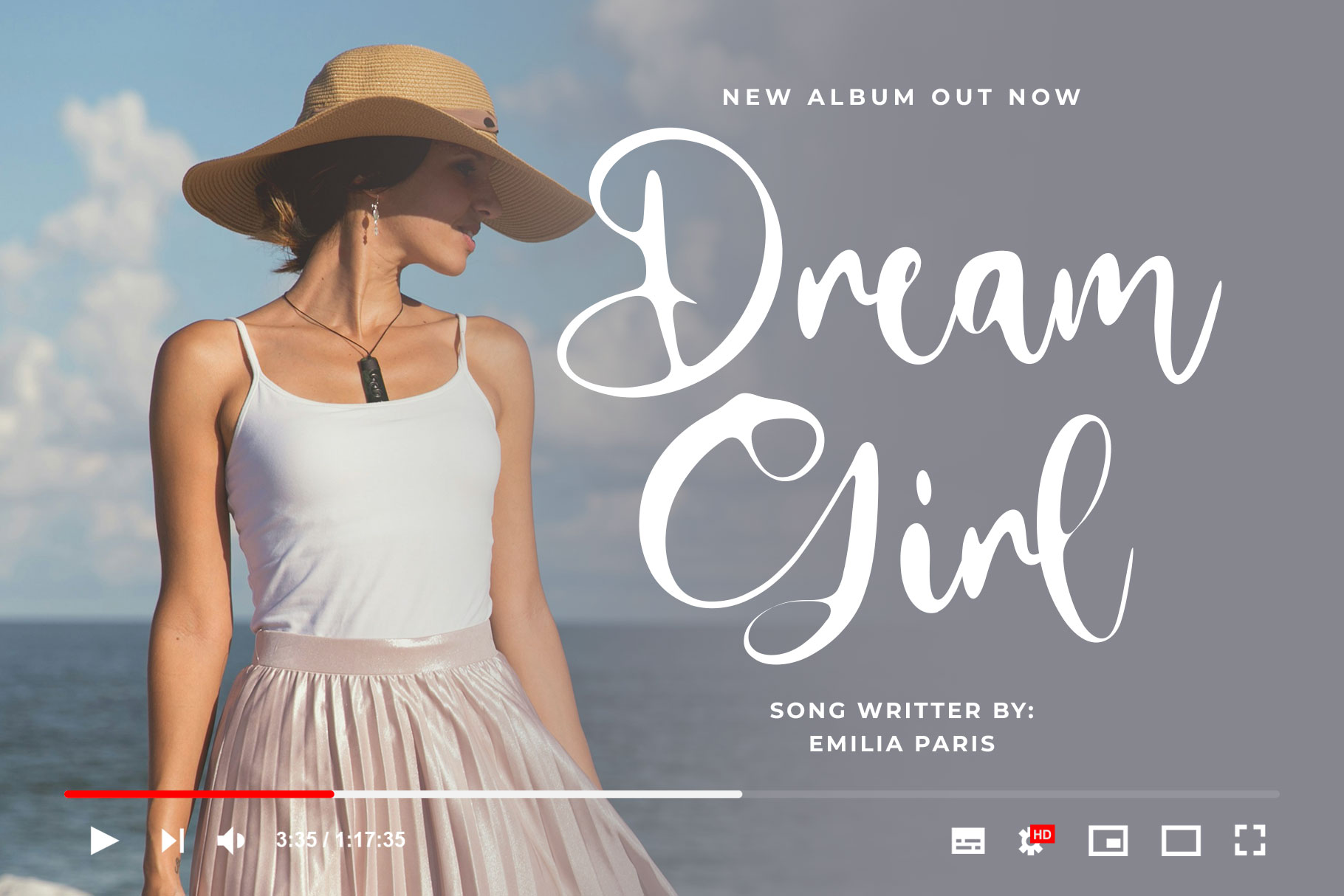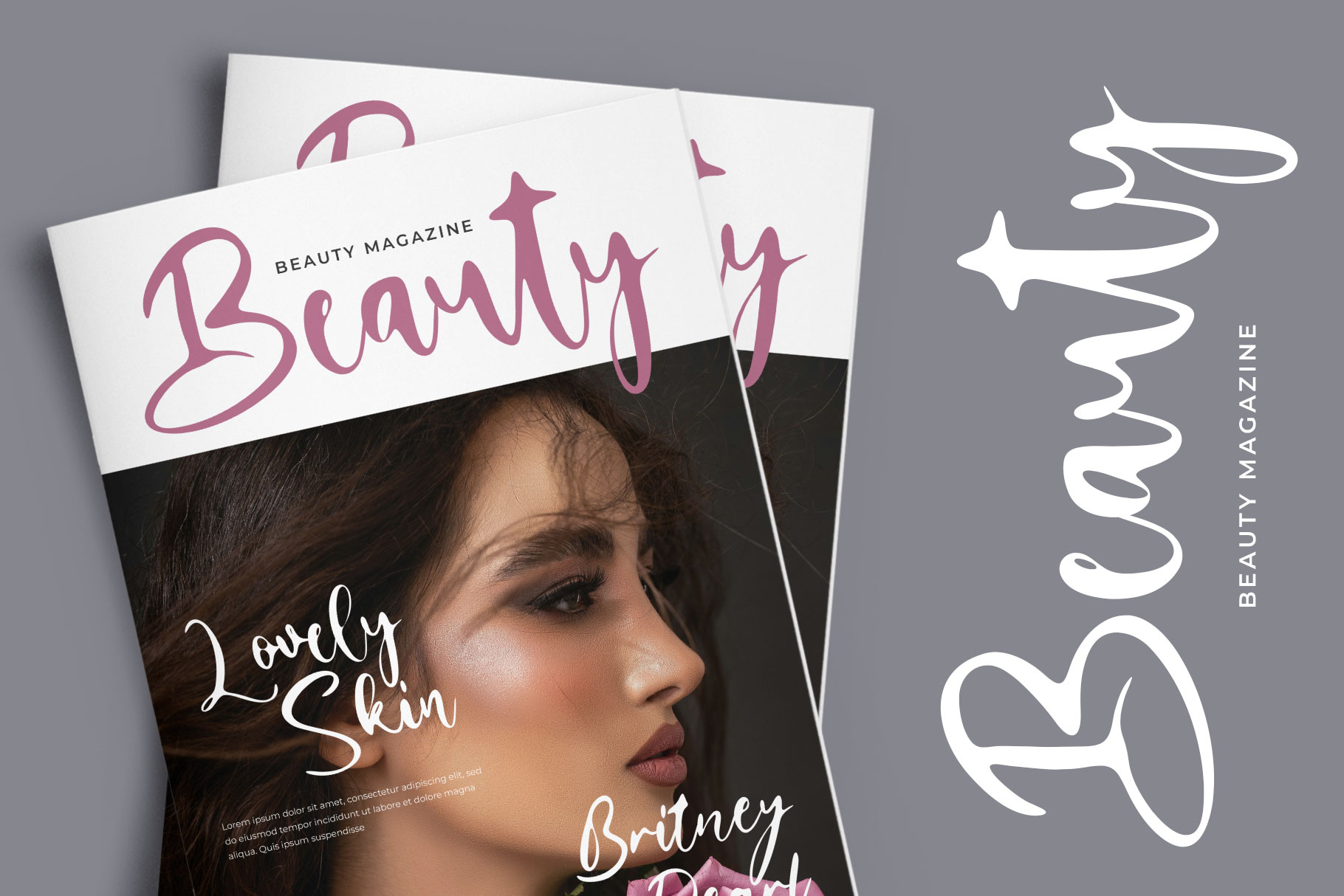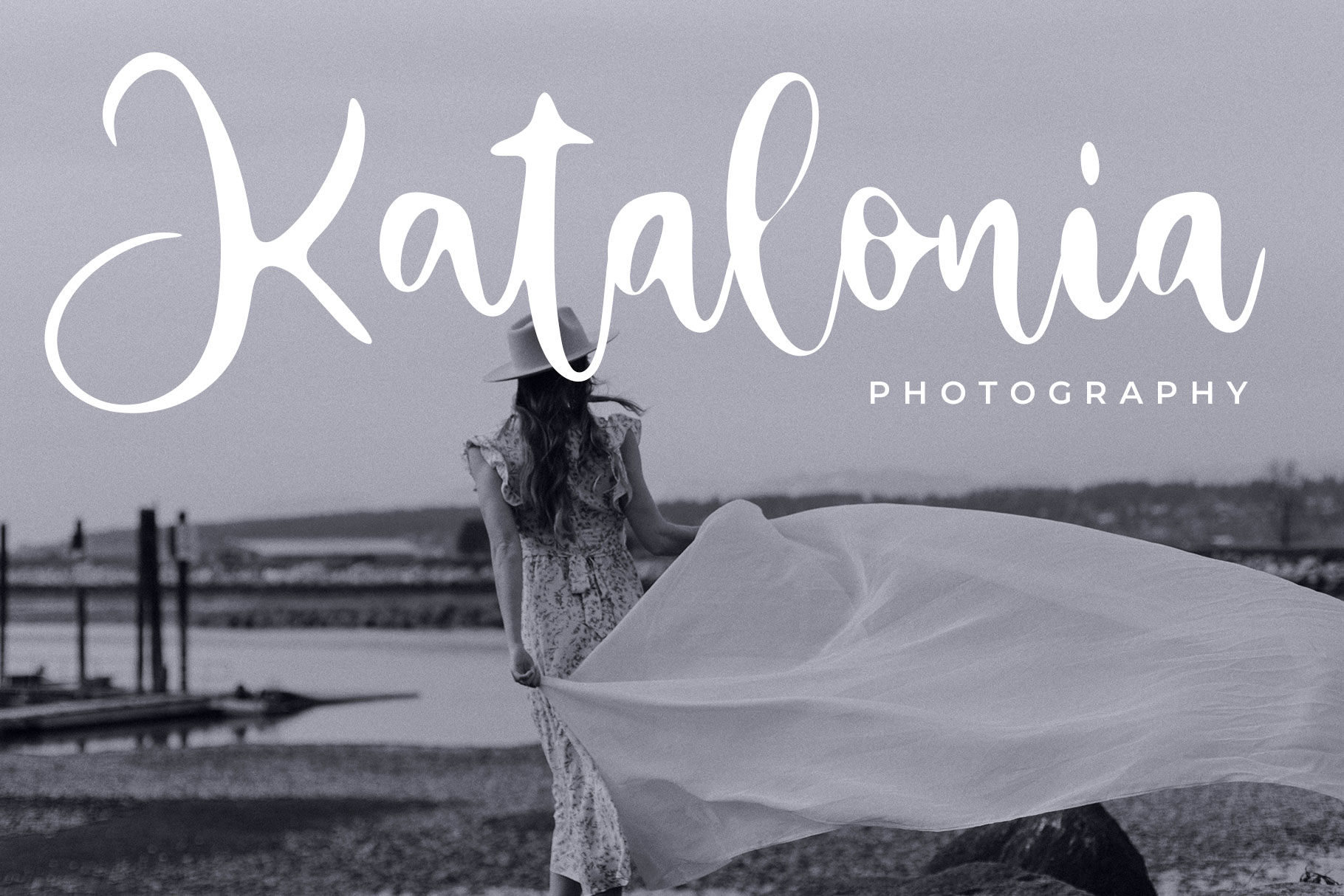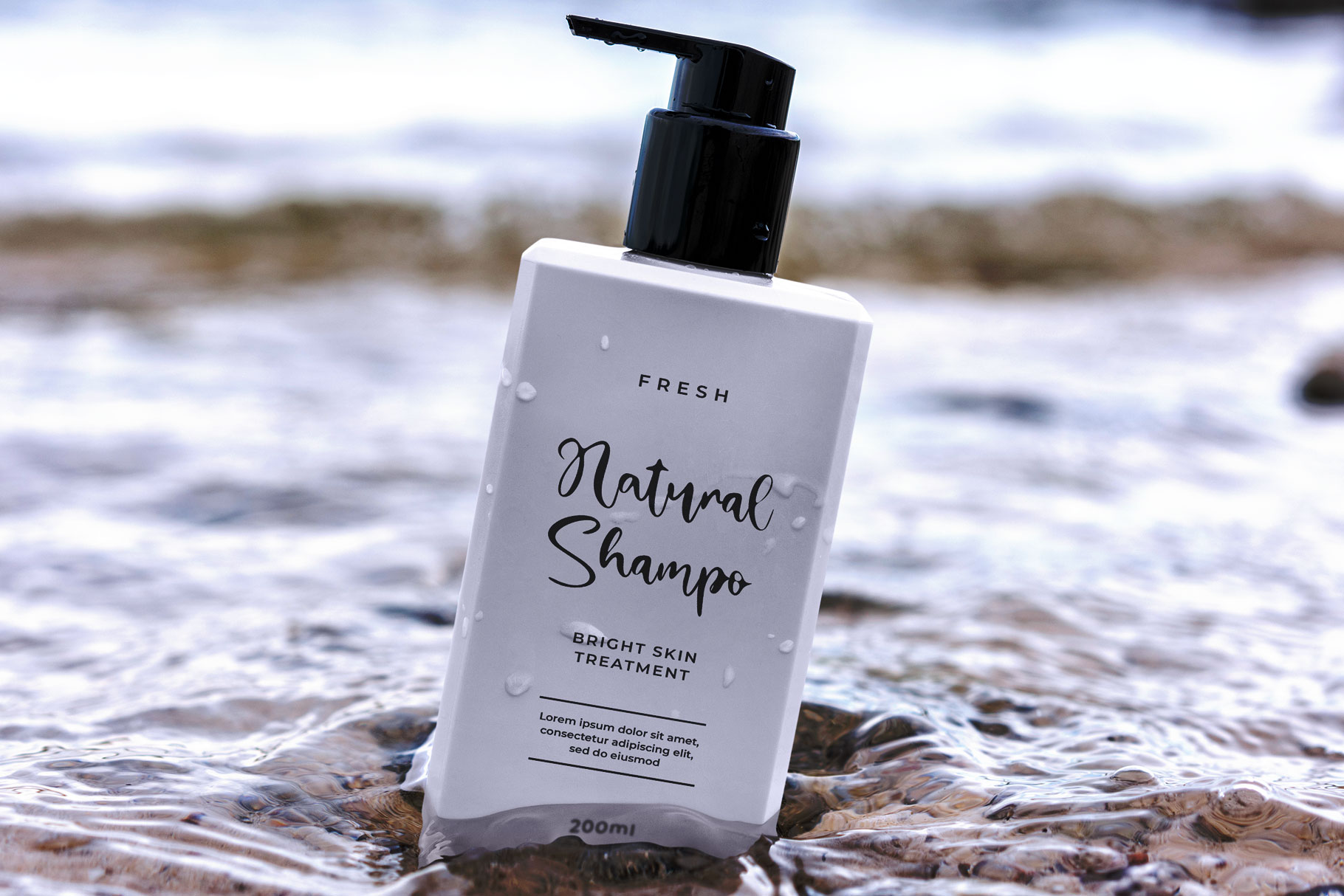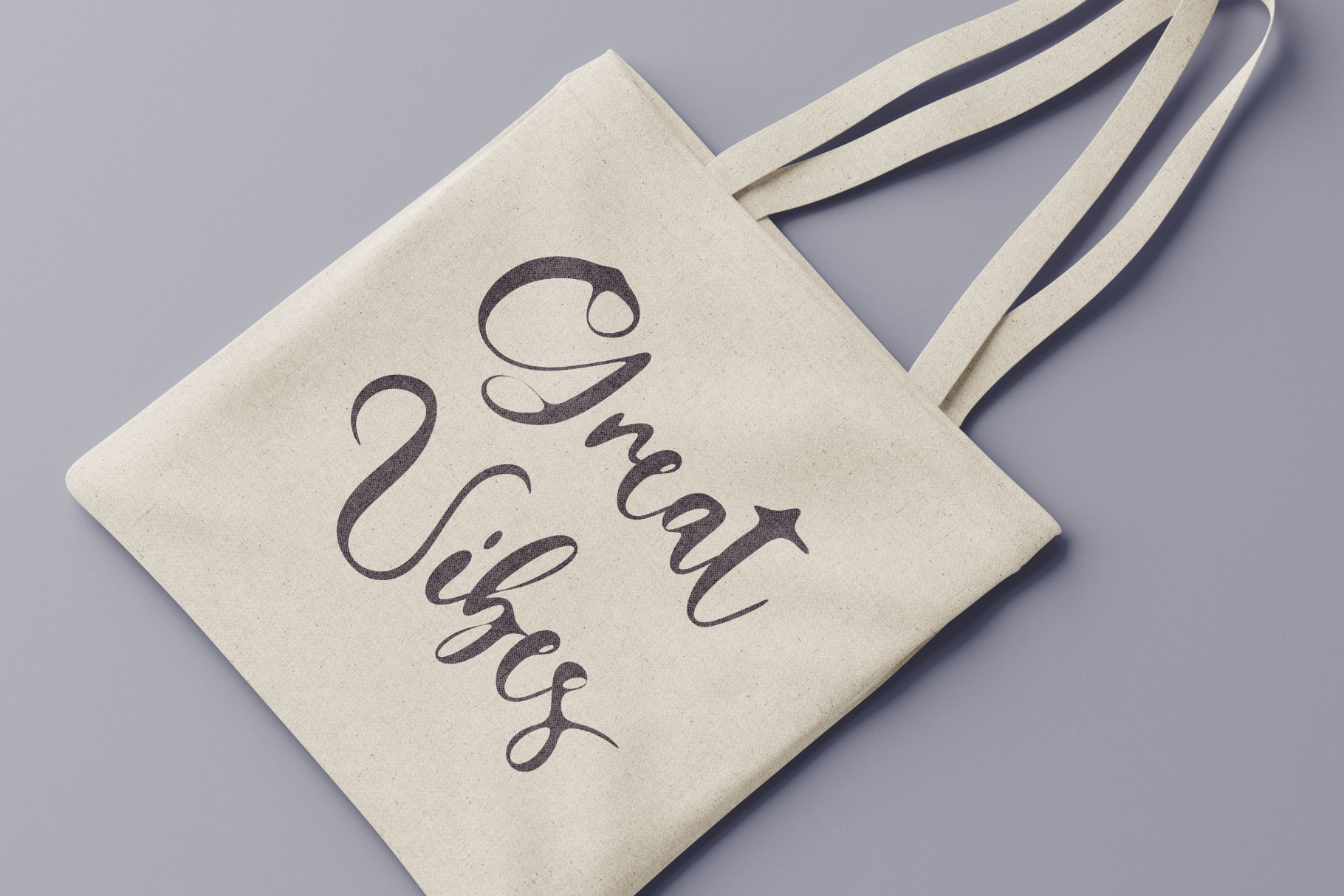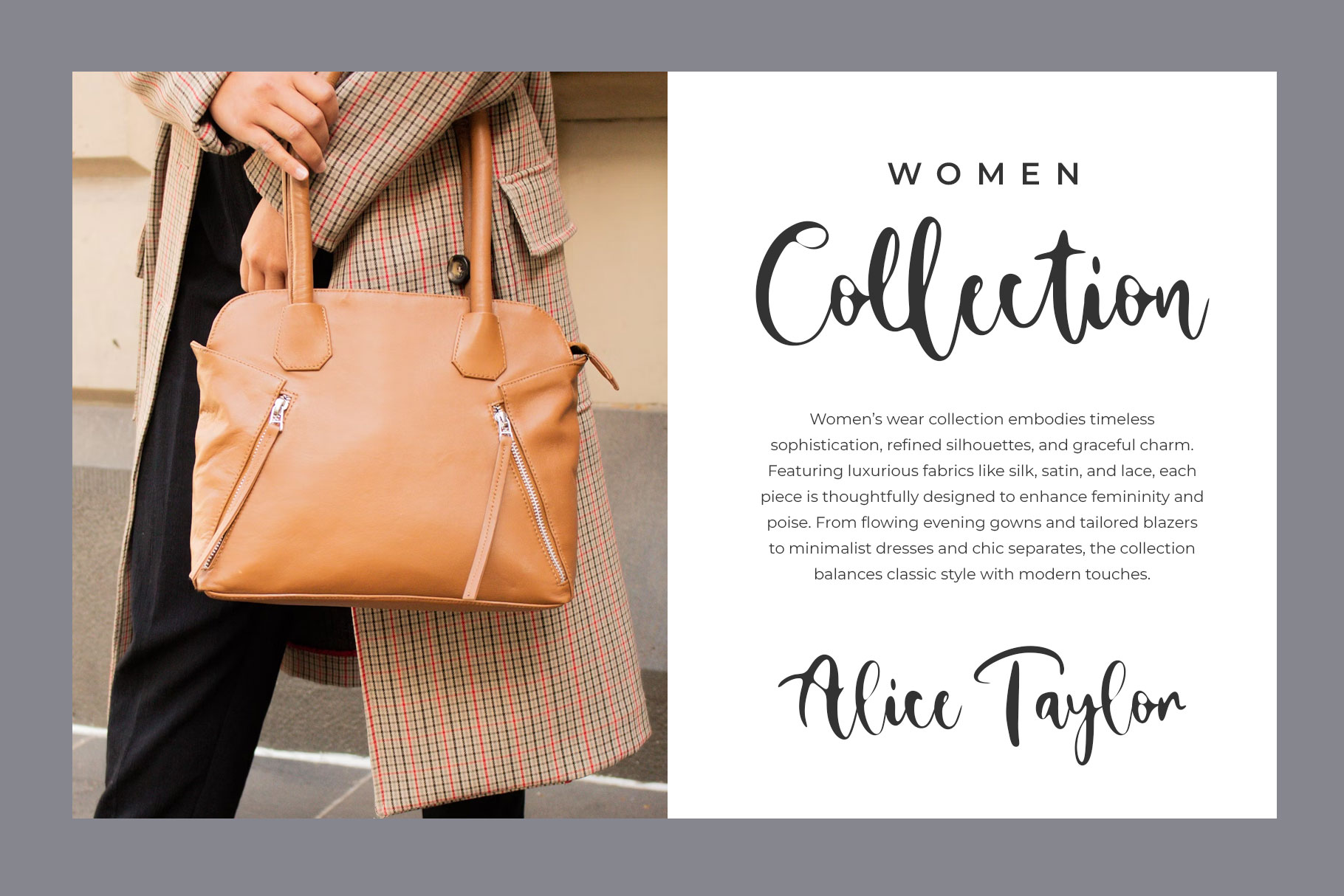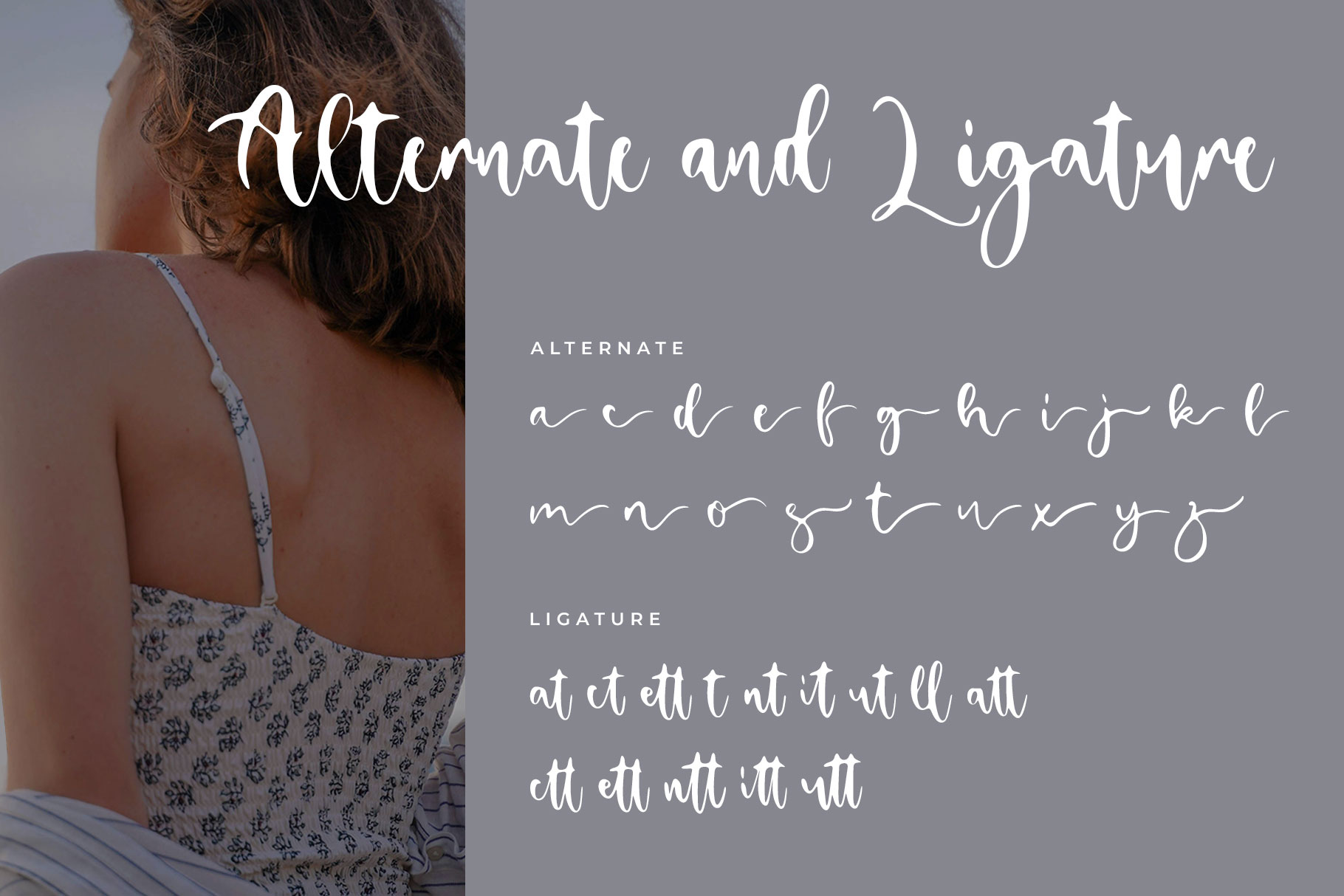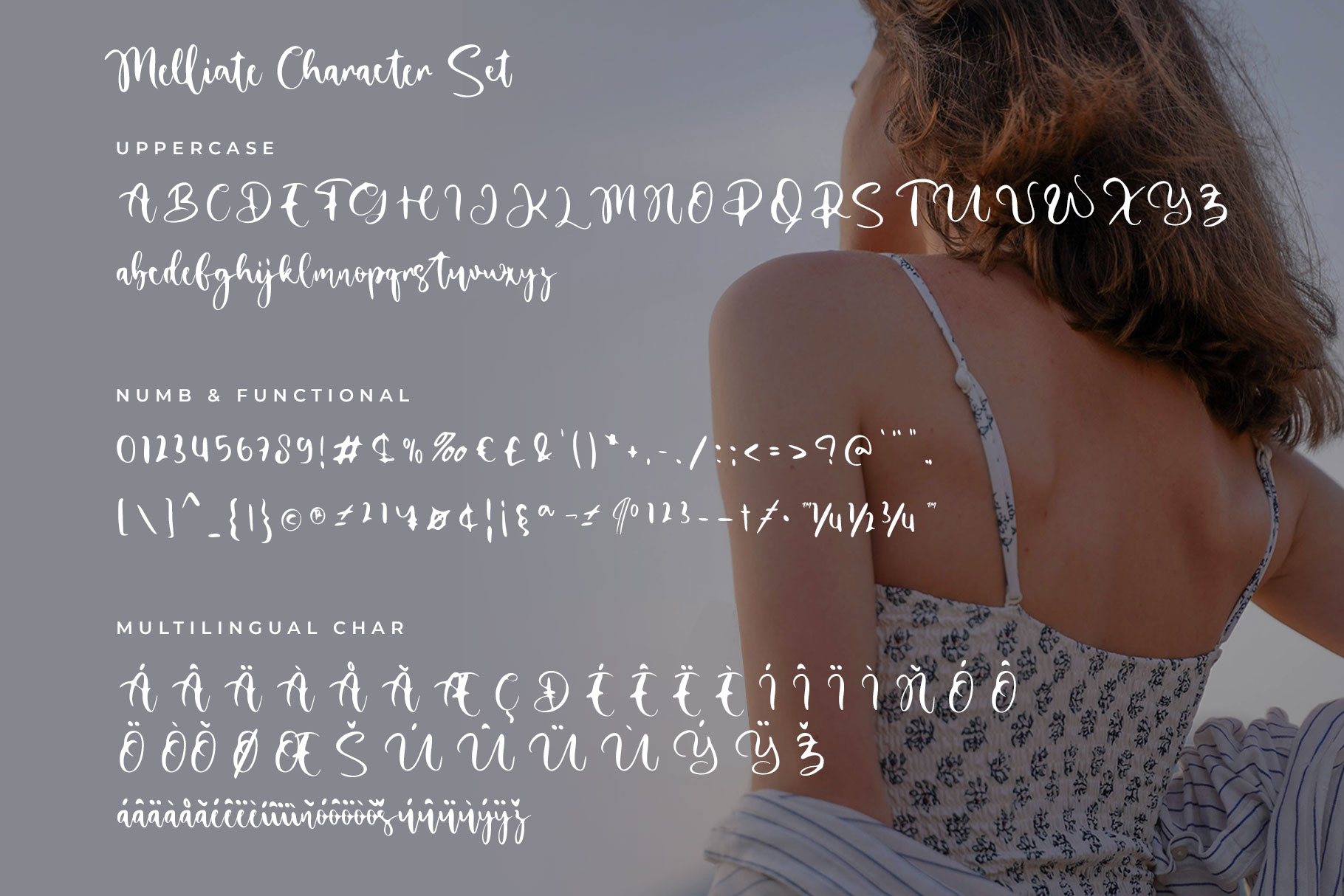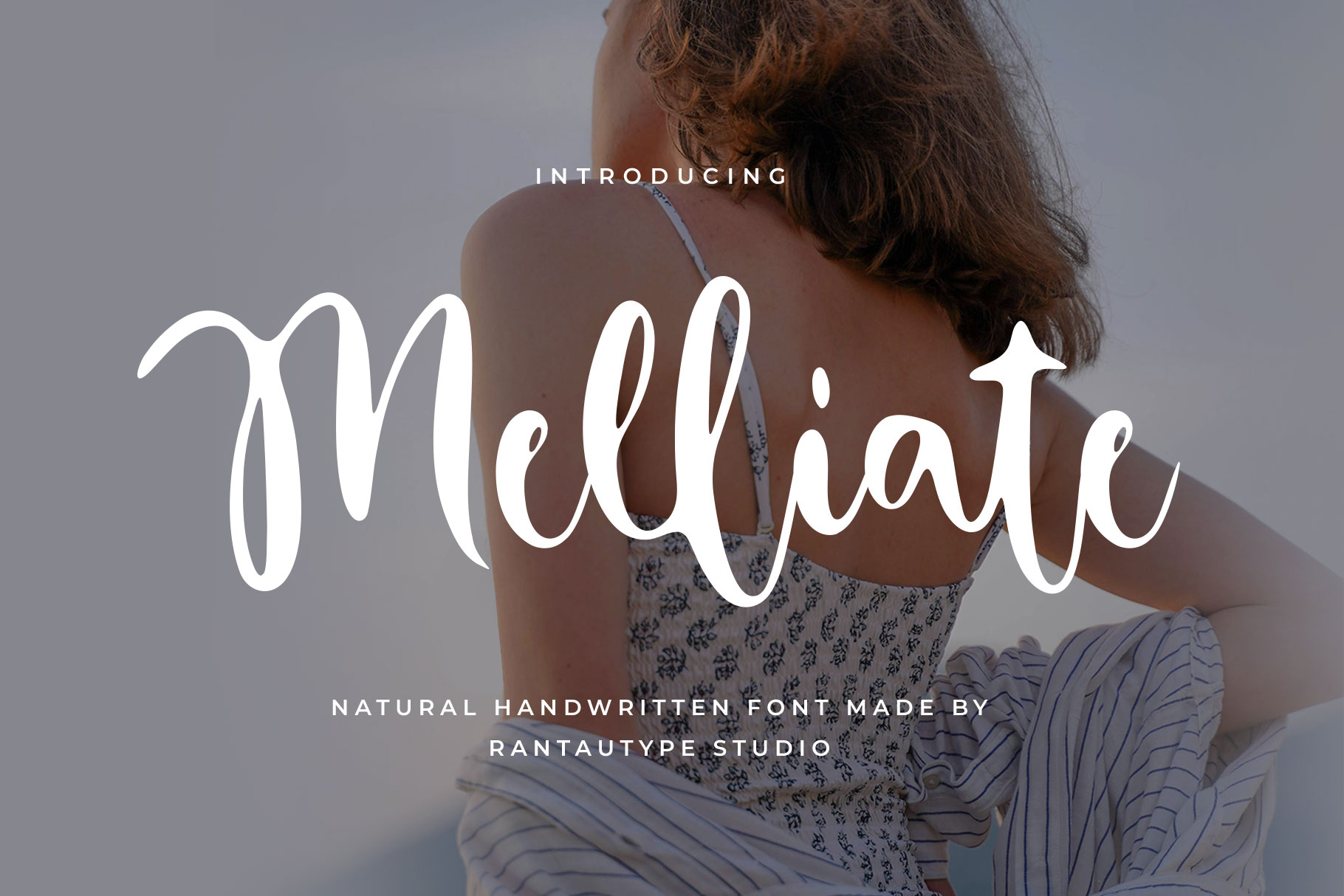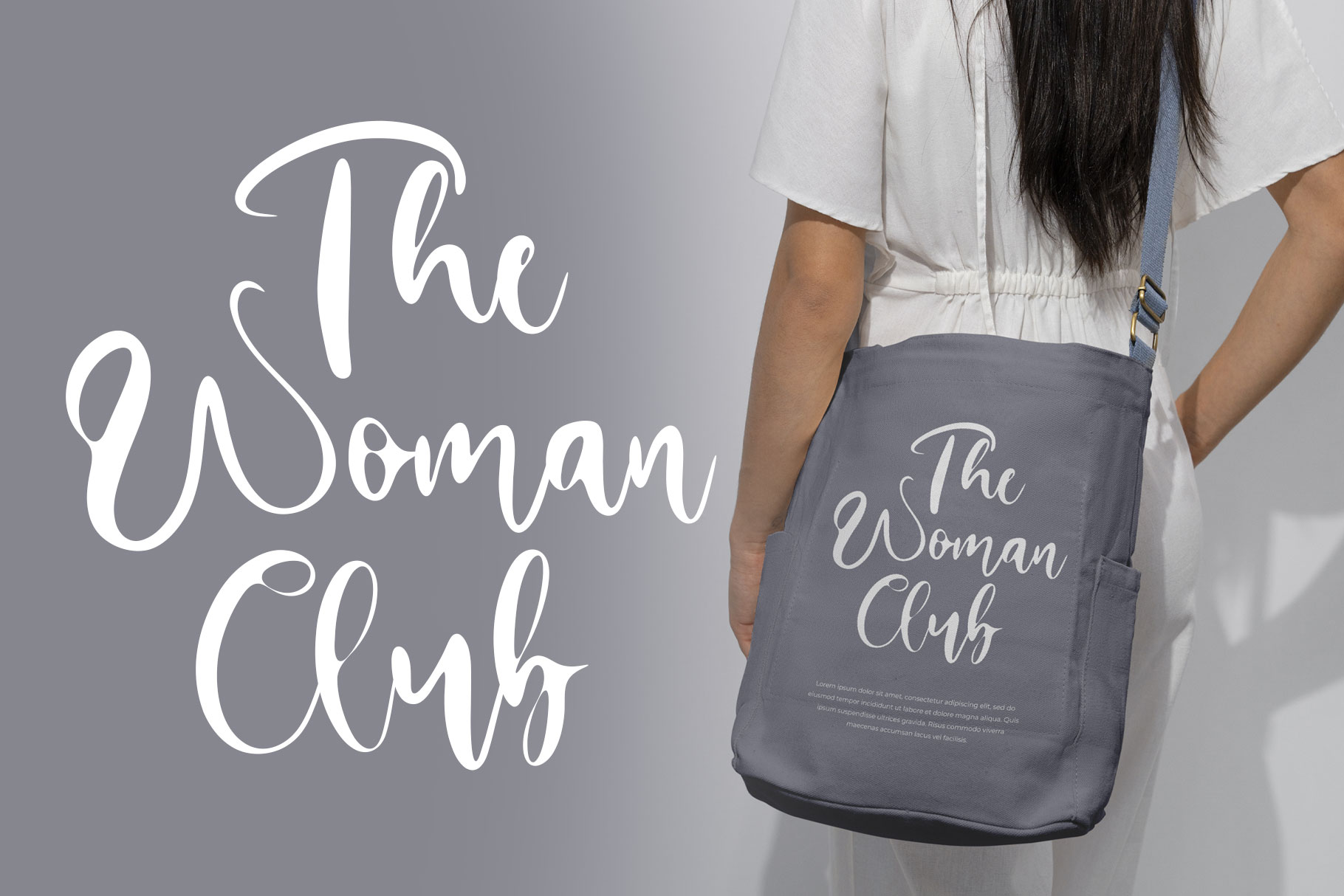
Melliate Natural Handwritten Font
Melliate is natural handwritten made by rantautype studio. Ranthesa captures the authentic charm of real handwriting with a relaxed, organic feel. Ranthesa bring the flow and imperfections of hand-drawn letters, it brings warmth, personality, and a human touch to any design.
Melliate is a perfectly choice for any creative endeavor, creating, modern, chic, lifestyle design such as logotype, title, cover, branding, invitations, wedding designs, display and magazine, social media posts, advertisements, printed quotes, product packaging, corporate brand, product designs, labels, photography, watermarks, special events and any other project with modern touch.